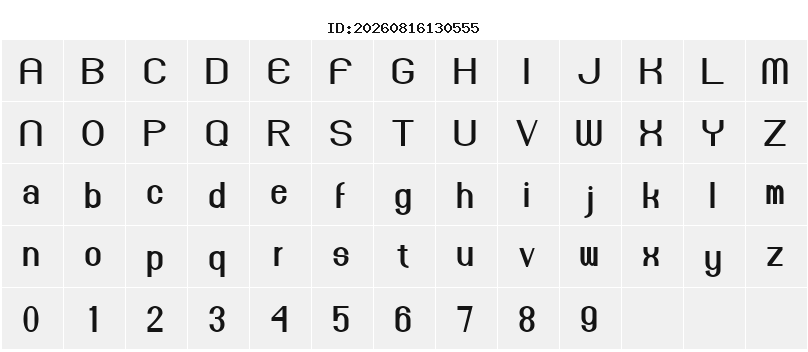
• Font Name: St Louis
• Full Font Name: St Louis Bold
About St Louis.ttf
St Louis.ttf is a modern, elegant sans-serif font designed for ultimate readability and visual harmony. Perfect for branding, headlines, web design, and print materials.